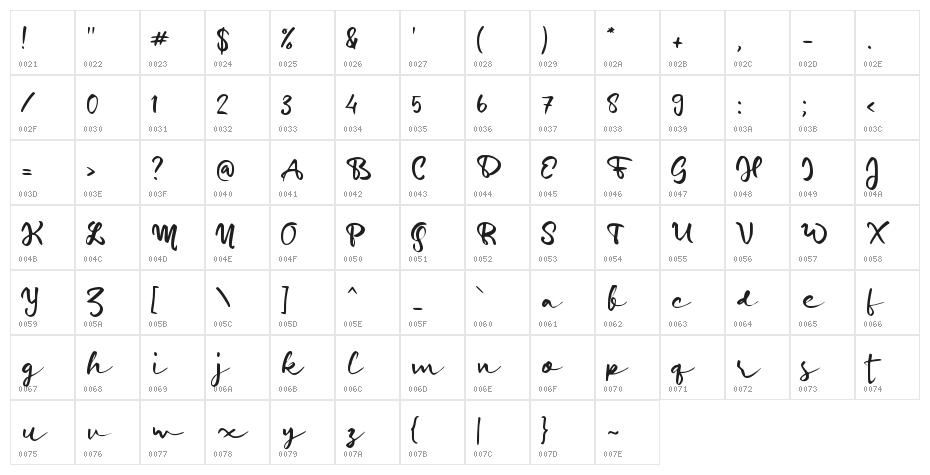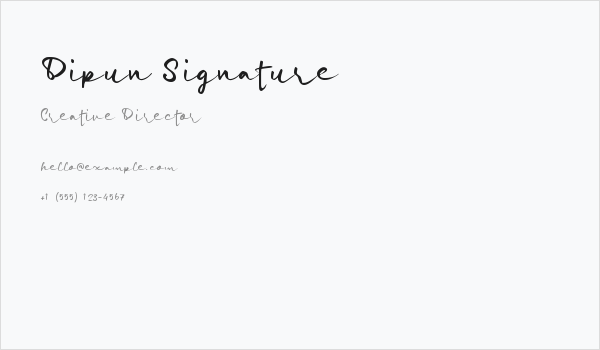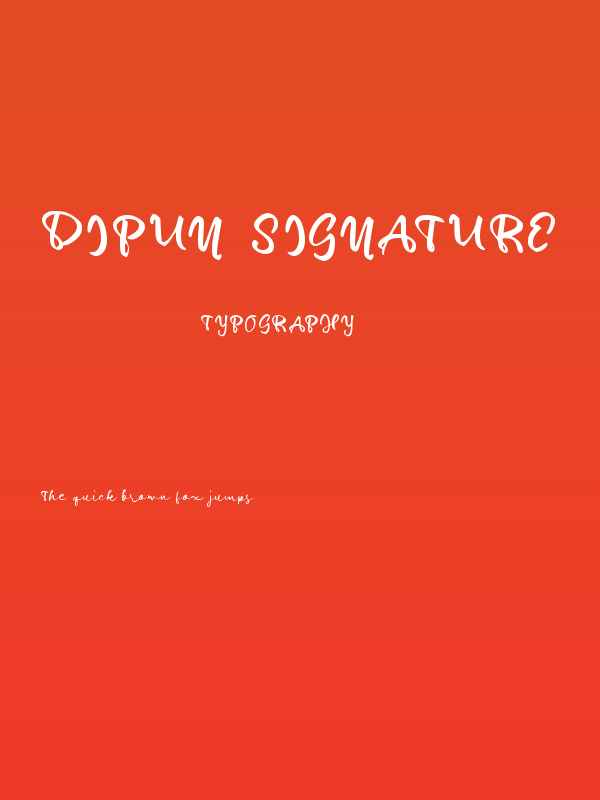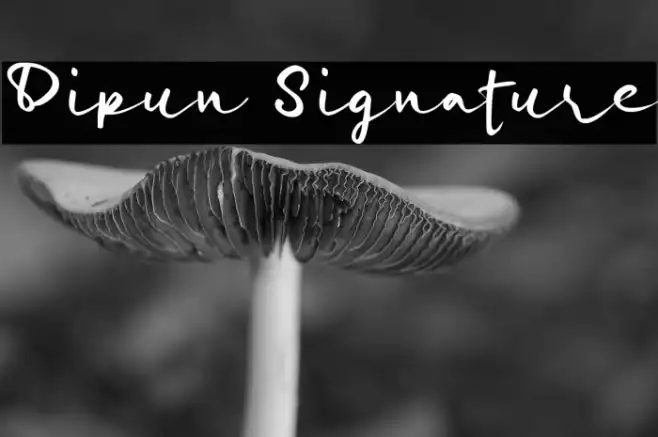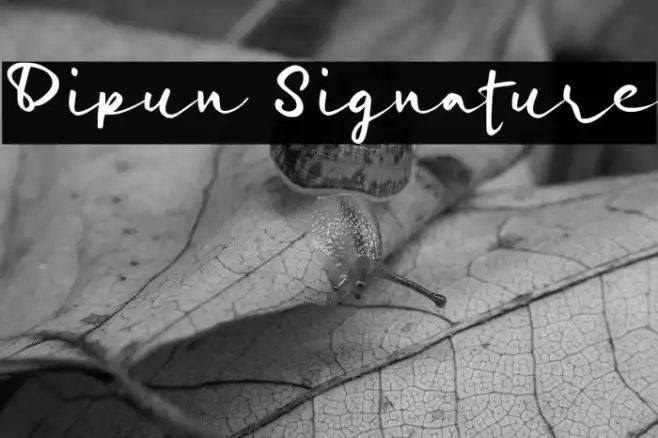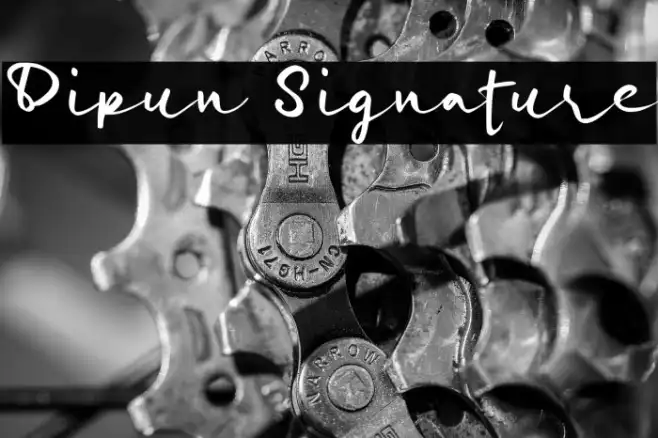
Dipun Signature Font
Dipun Signature Description
This font exudes a charming and fluid handwritten style, characterized by its smooth, flowing curves and elegant strokes. The uppercase letters are bold and slightly whimsical, while the lowercase letters maintain a delicate and graceful appearance. The numerals are consistent with the overall style, offering a playful yet sophisticated look. Special characters are thoughtfully designed to complement the alphabet, adding versatility to the font. Its organic and natural feel makes it ideal for projects that require a personal touch, such as invitations, greeting cards, and branding materials.